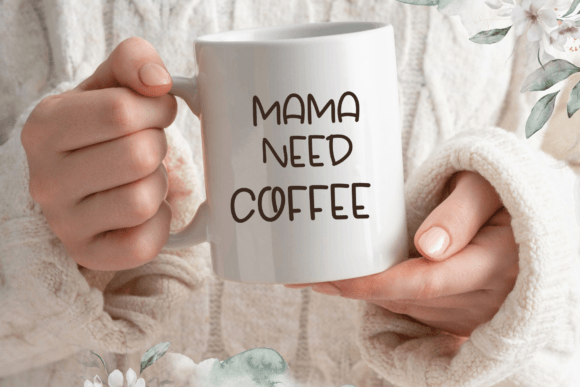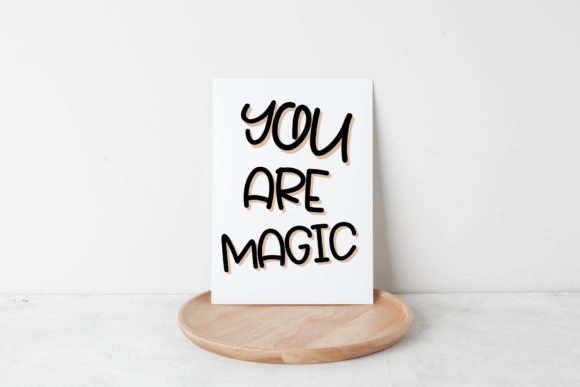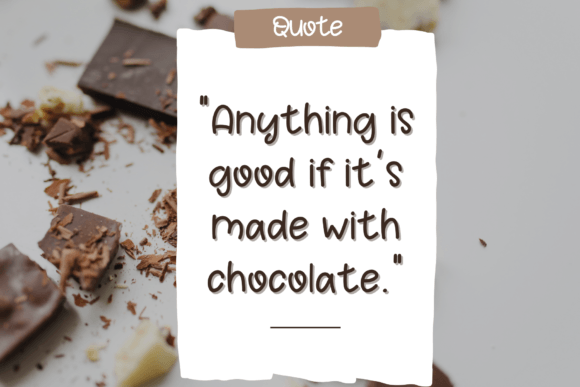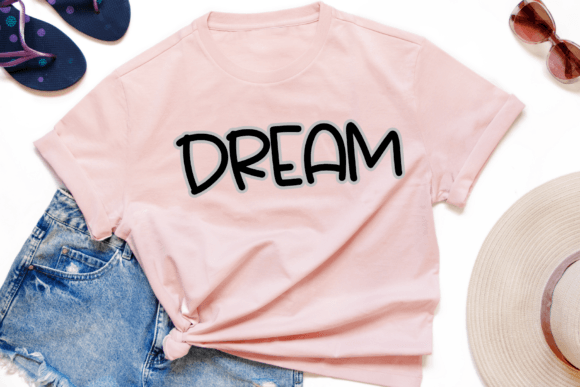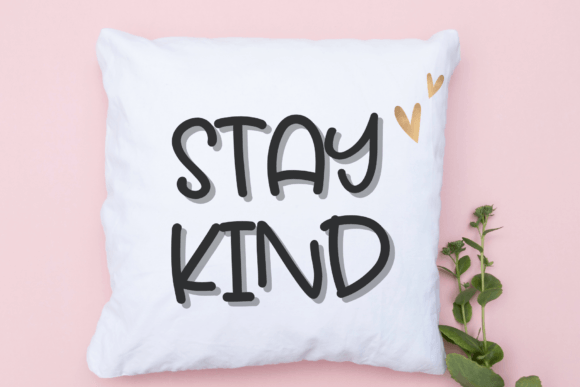
Introduction to Lovely Mountain Font
Have you ever stared at a blank page, trying to bring your creative vision to life, only to be stuck by the lack of the perfect font? That’s where Lovely Mountain Font comes in – a beautifully crafted handwritten font that’s about to become your new go-to design resource. Whether you’re working on a high-end logo project, a whimsical wedding invitation, or a simple social media post, Lovely Mountain Font is here to add that extra touch of elegance and class.
As a designer, you understand the importance of having the right tools at your disposal. A high-quality font like Lovely Mountain Font can make all the difference in taking your design project to the next level. With its friendly and approachable style, this font is perfect for adding a personal touch to your work. And the best part? It’s available for free download, making it an accessible design resource for designers of all levels.
From product packaging to photography, Lovely Mountain Font is the perfect addition to any design project. With its transparent background and high-quality design, you can rest assured that your work will look professional and polished. So why settle for an ordinary font when you can have Lovely Mountain Font? Download it now and take your design projects to new heights!
Key Features of Lovely Mountain Font
- High-quality design for creative projects: Lovely Mountain Font is ideal for use in a variety of creative projects, including graphic design, digital art, and more.
- High-resolution design: The font is designed at a high resolution, ensuring crisp and clear text output, even at larger sizes.
- Unique, hand-drawn style: Lovely Mountain Font features a unique, hand-drawn style that adds a touch of personality to any design project.
- Large character set: The font includes a large character set, including uppercase and lowercase letters, numbers, and punctuation marks.
Honest Review: Lovely Mountain Font
I recently had the opportunity to work with the Lovely Mountain Font, and I’m excited to share my thoughts on this creative project.
- High-quality design: The Lovely Mountain Font boasts crisp, clean lines and a beautiful, natural feel.
- Limited character set: While the font is lovely, it’s limited in its character set, which may be a challenge for designers who need a wide range of glyphs.
- Lack of bold and italic styles: The font doesn’t offer bold and italic variations, which may be a drawback for designers who like to experiment with different font styles.
Overall, I was impressed with the Lovely Mountain Font’s design quality and the convenience of having it available for free download. However, its limitations may be a hindrance for some designers. If you’re working on a creative project and need a high-quality font with a natural feel, the Lovely Mountain Font is definitely worth considering.